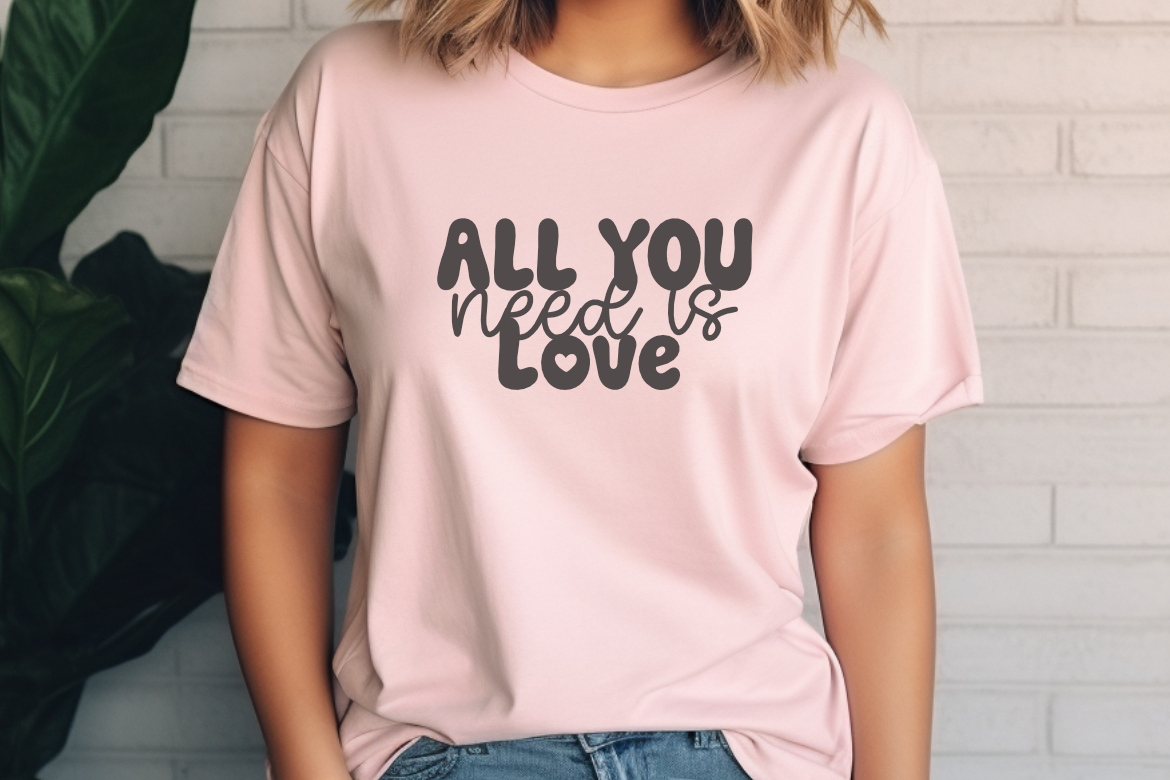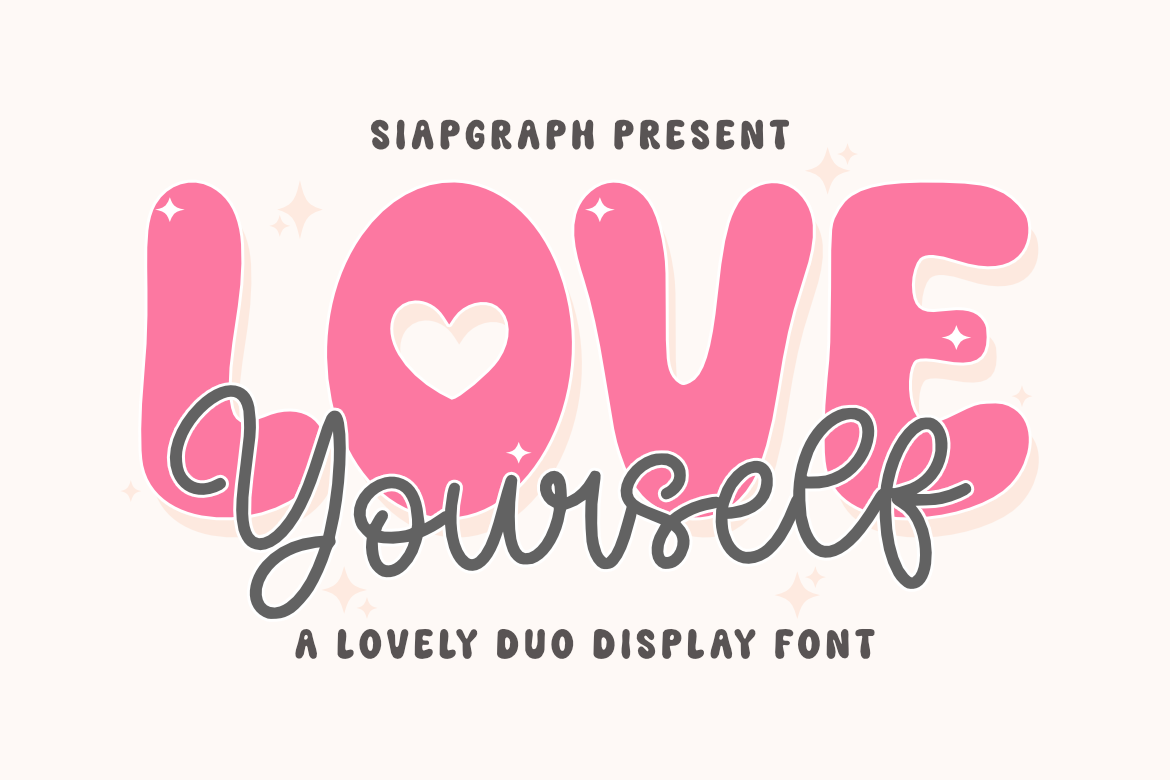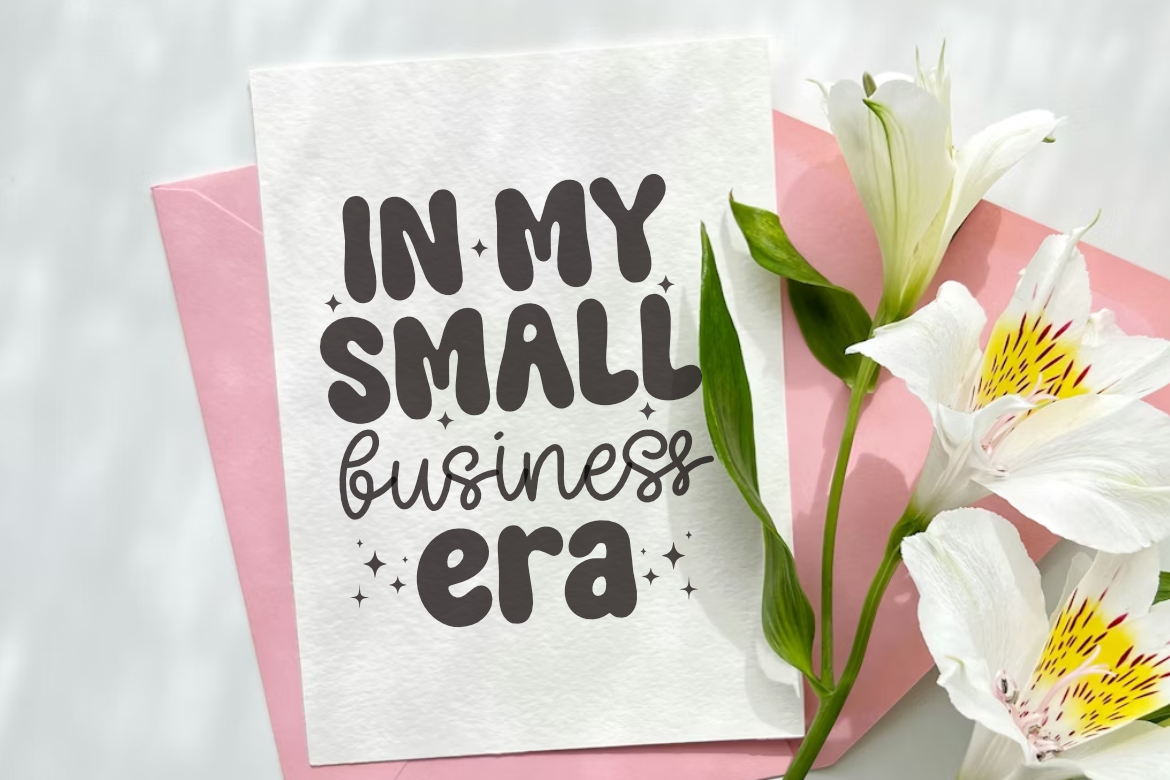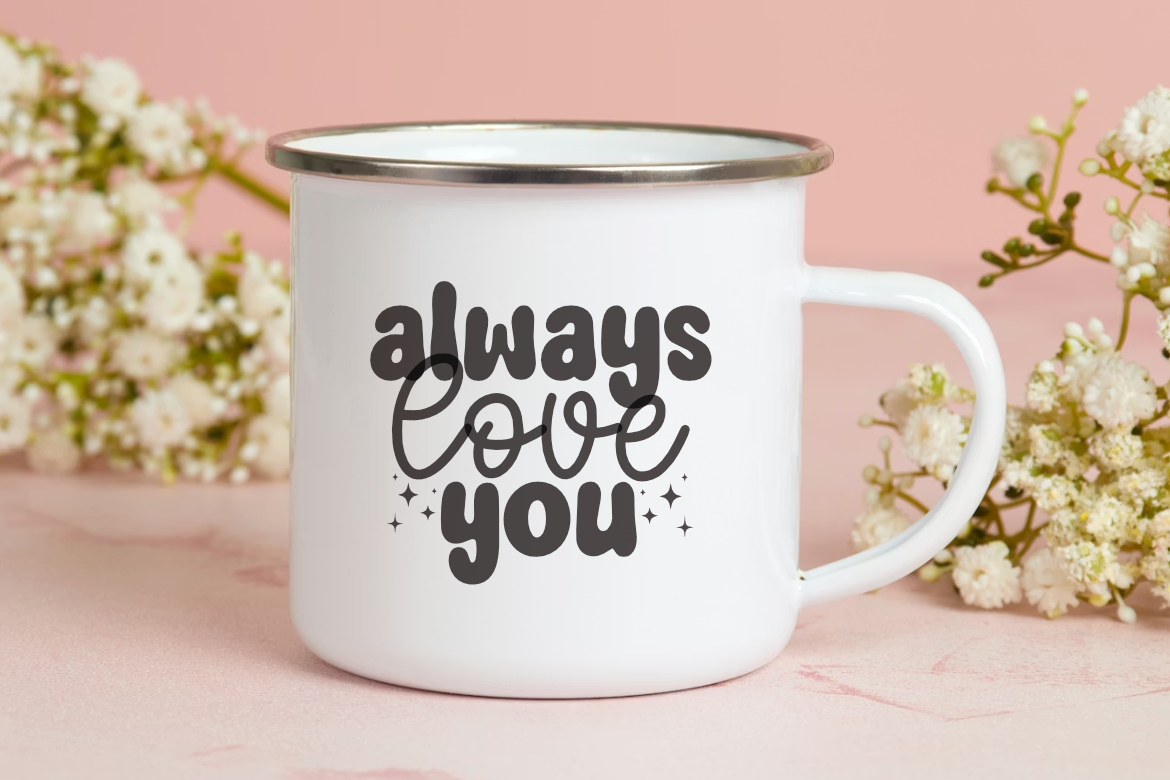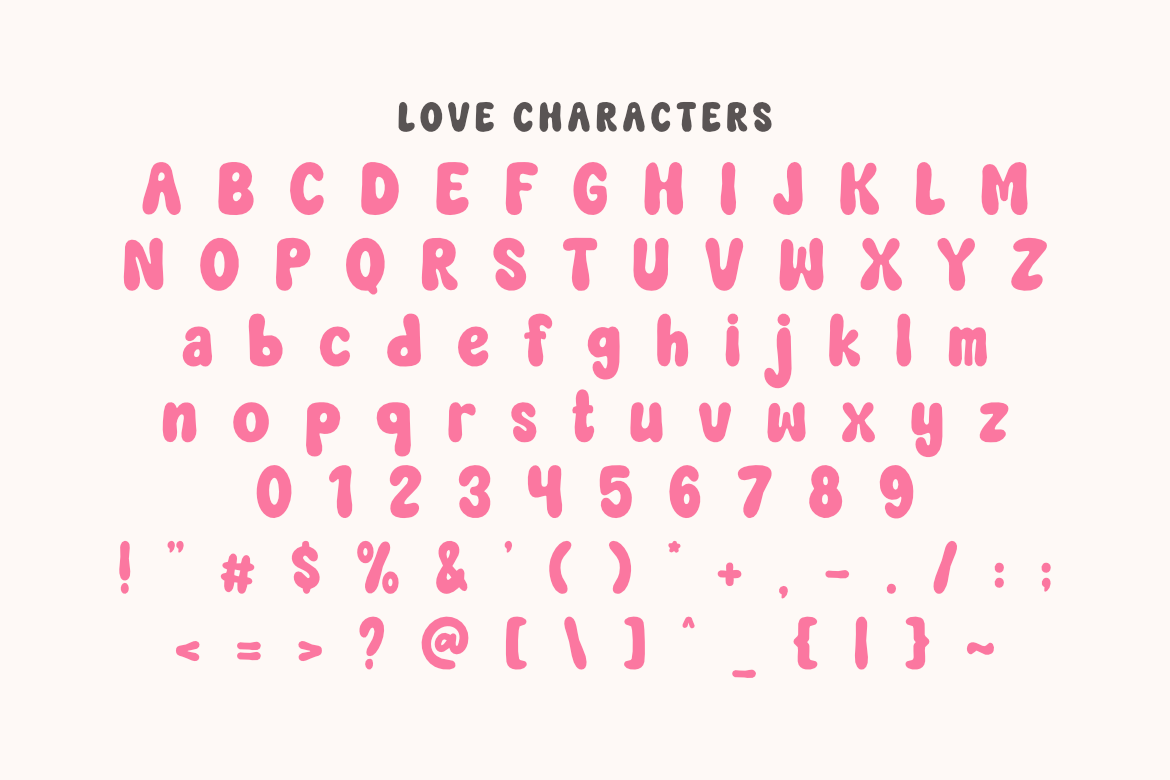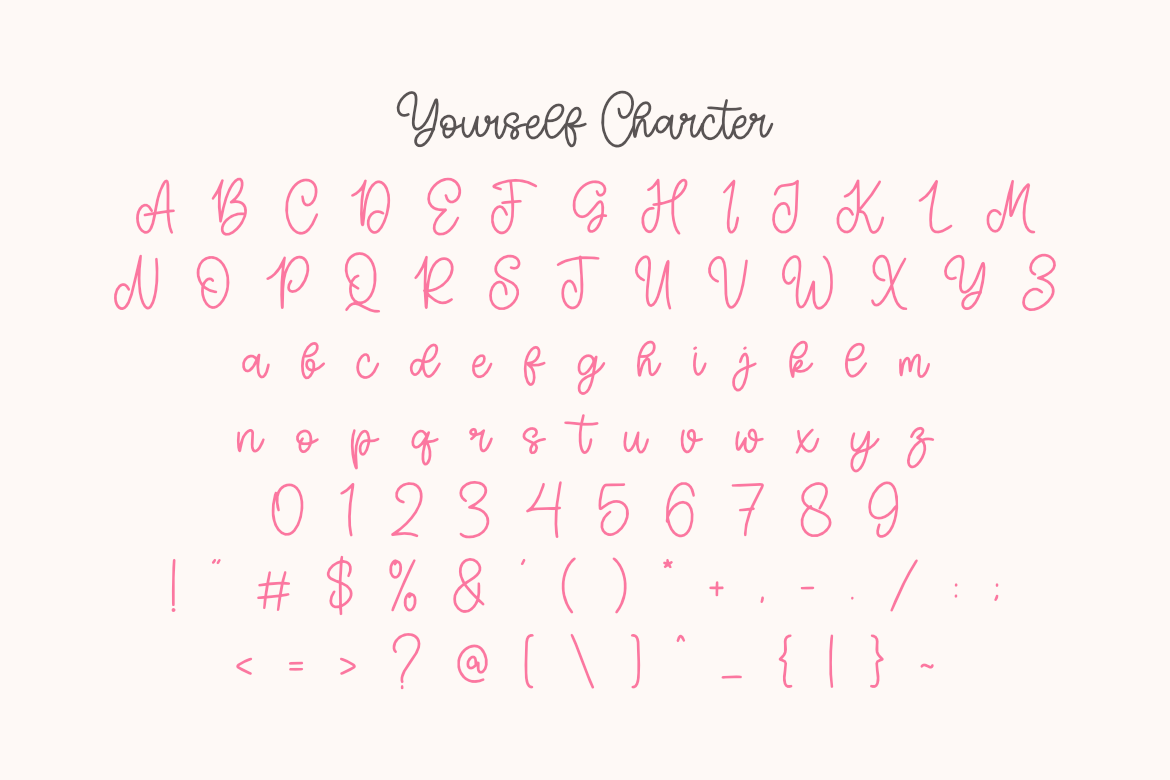
Love Yourself - Cute Valentine Duo Font for Cricut and Sublimation
Bring your ideas to life with Love Yourself is a valentine font duo, a charming and cute bubble font that exudes playfulness! Its soft curves and bold appearance are perfect for creating eye-catching headlines, posters, social media graphics, and branding. Add a dreamy touch to your designs with this delightful font that’s both fun and versatile.